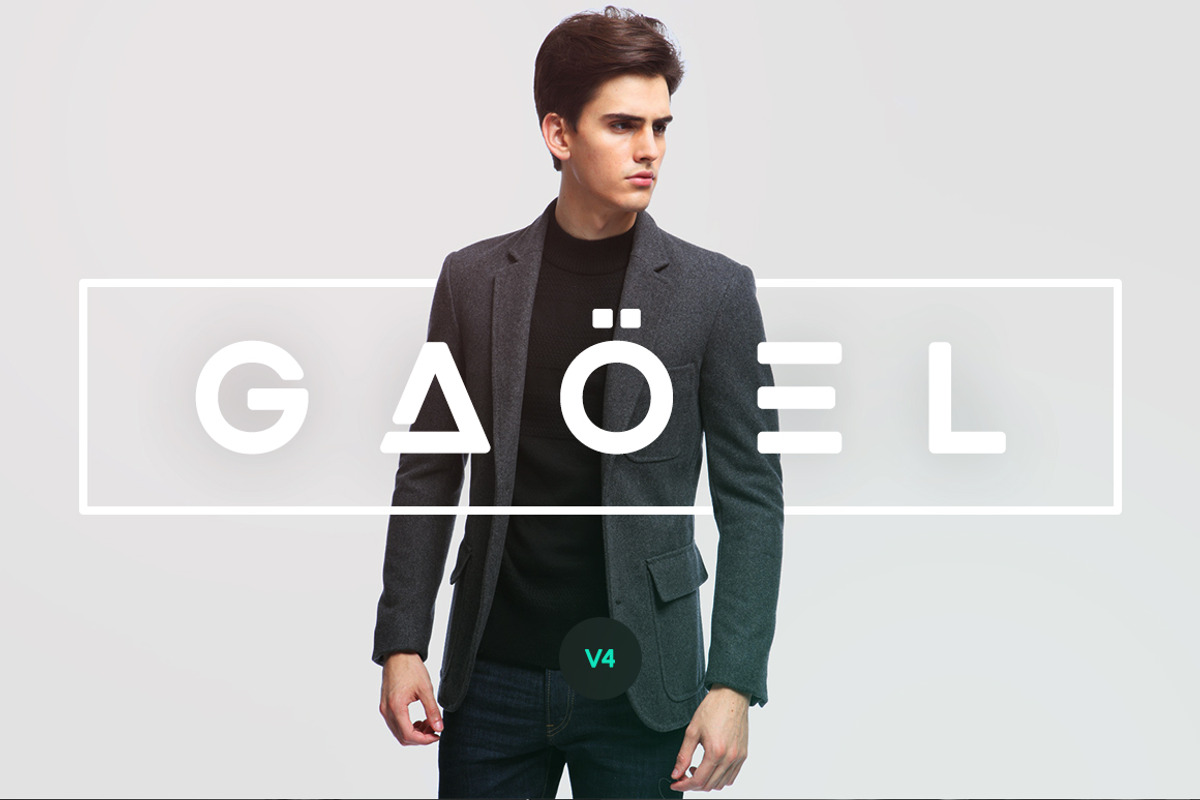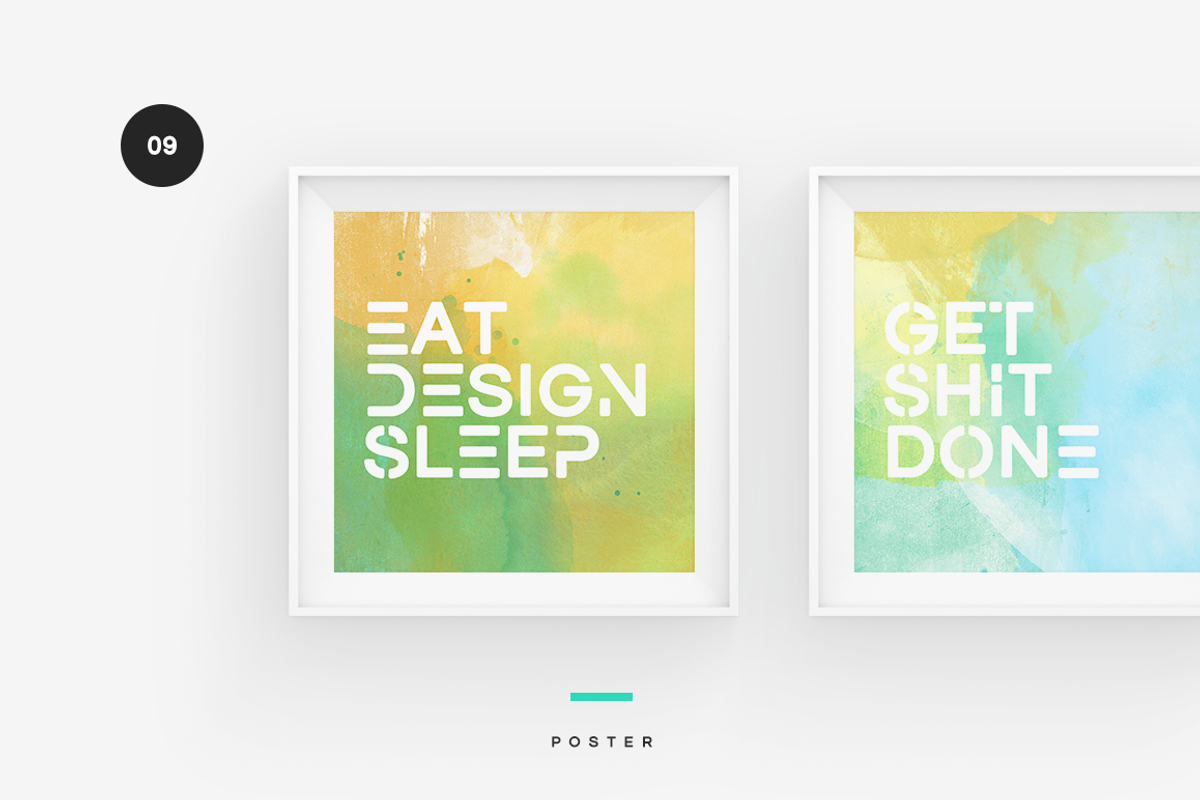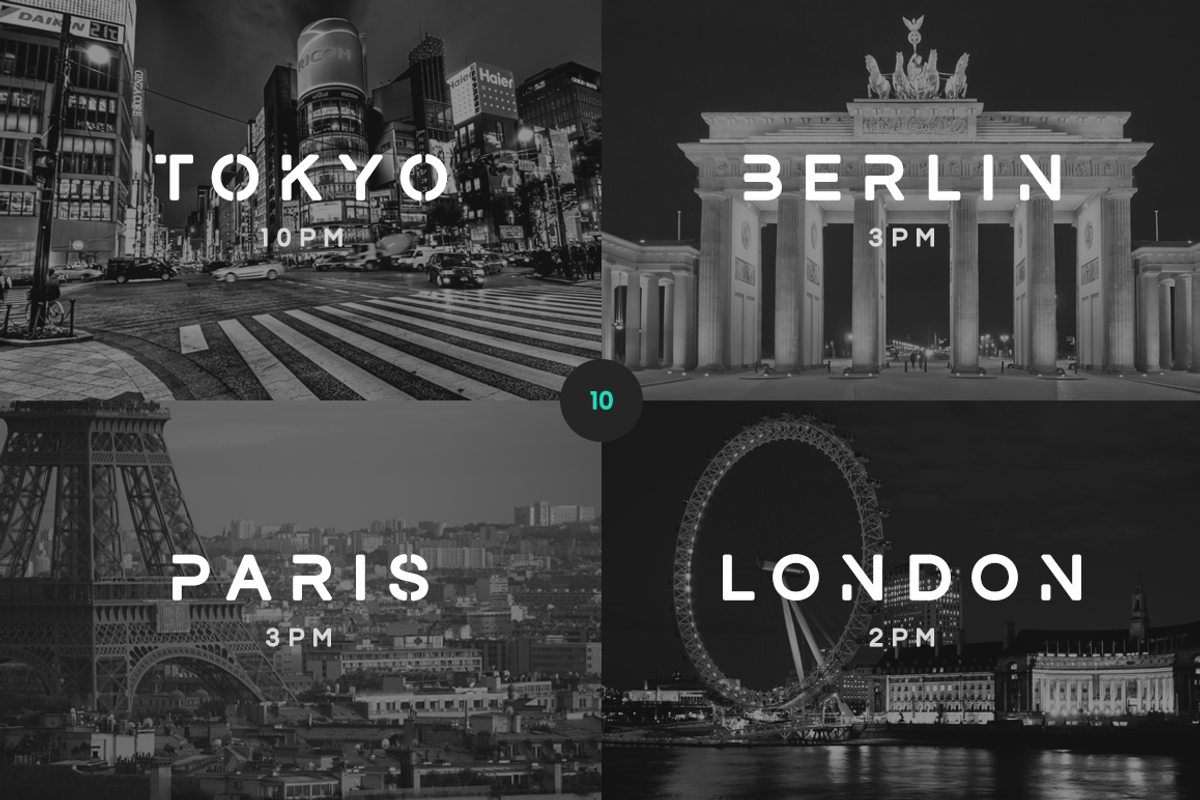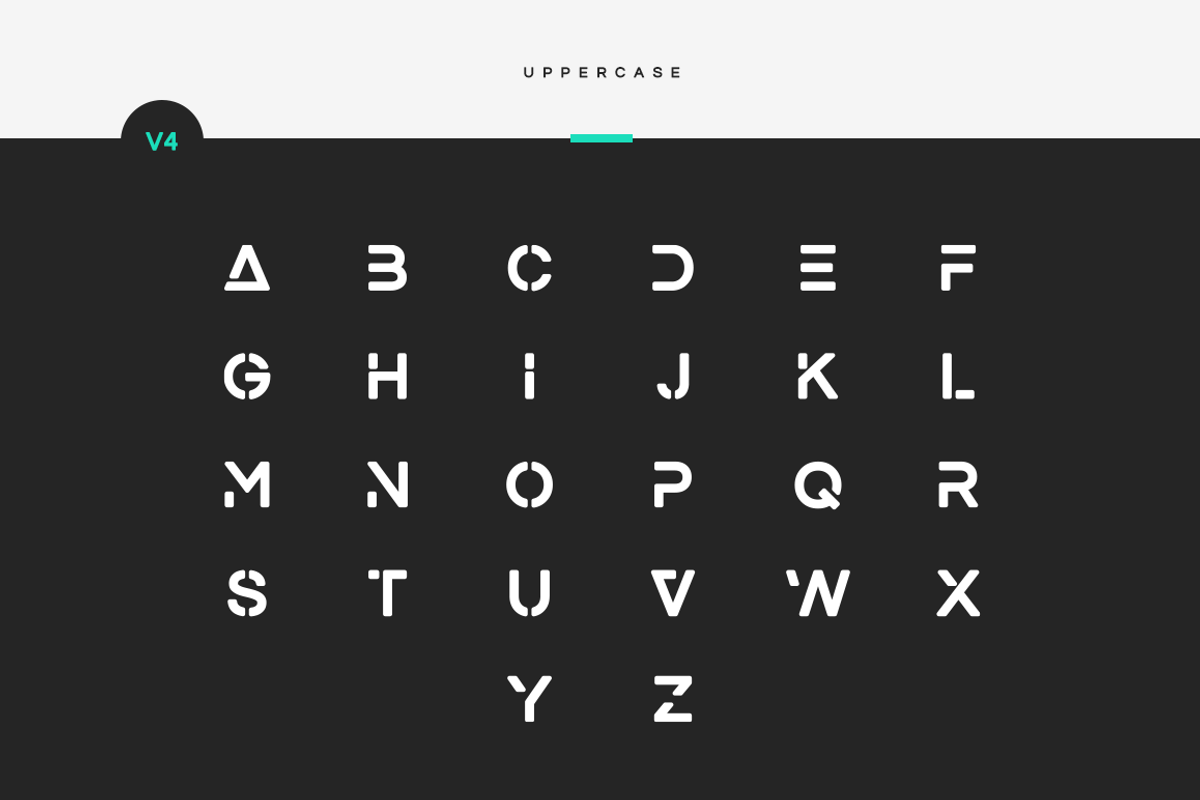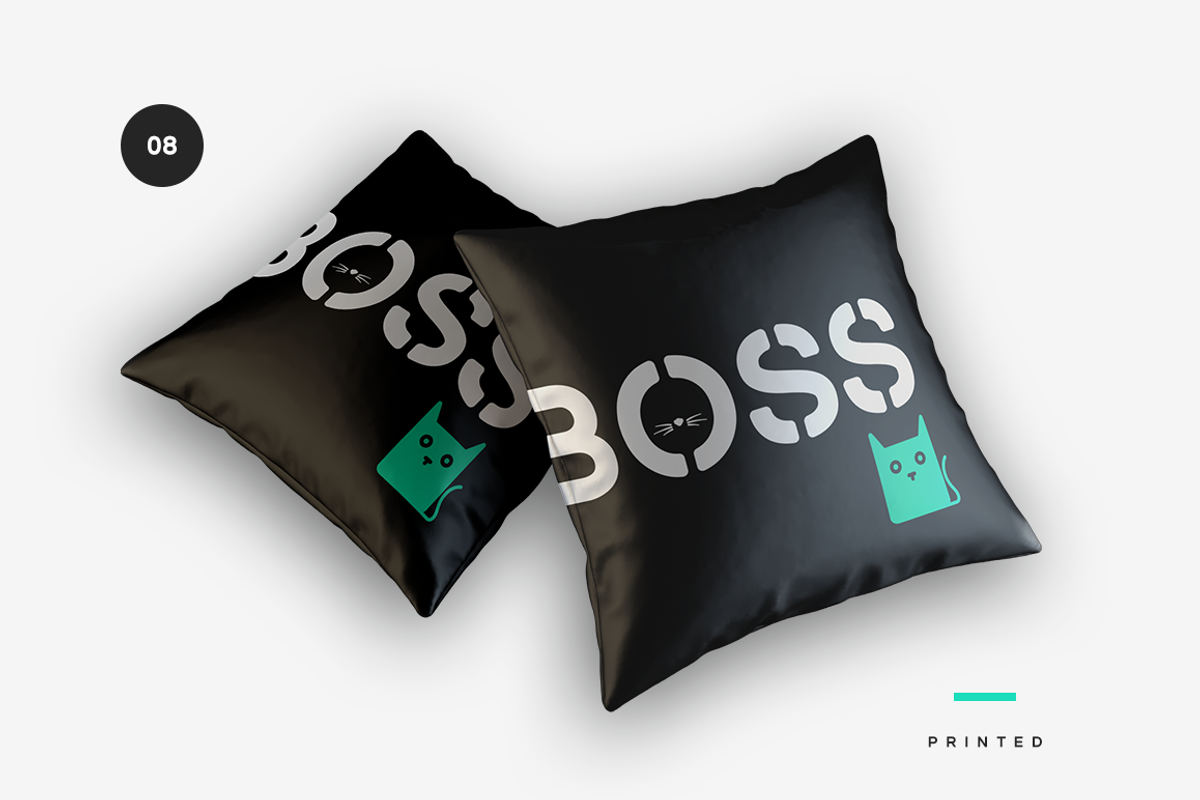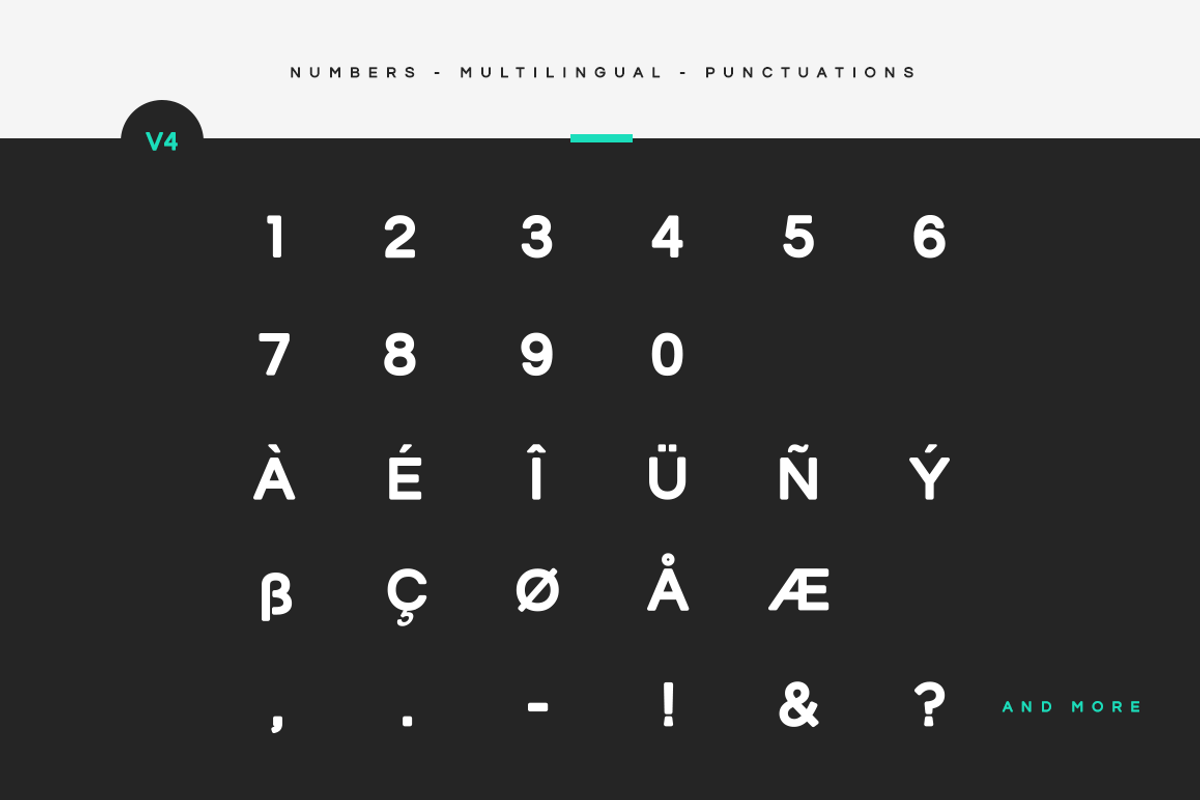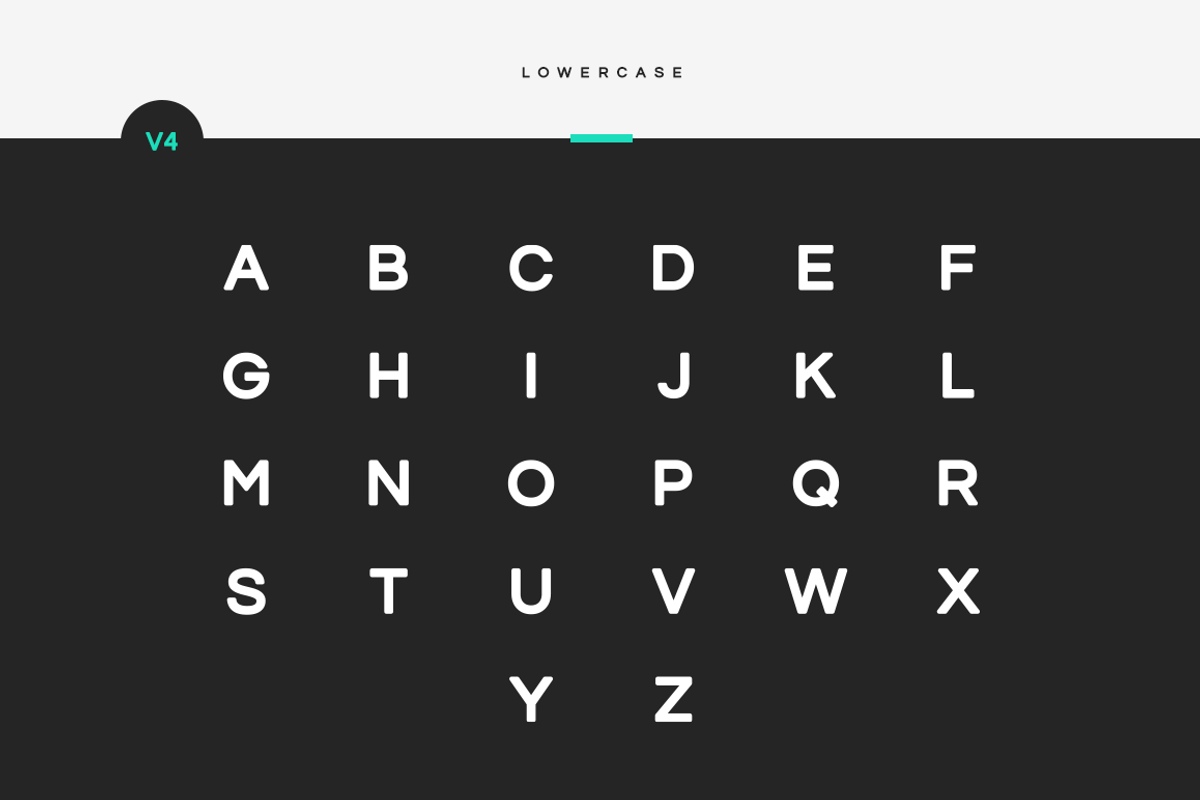
Gaoel Sans
**GAOEL FONT | A must have tool for professionals **
Soft, Bold, and Elegant. Gaoel is the new all caps sans serif typeface that feels somehow familiar. It inherited an honest tone that’s confident but not arrogant, cozy but not mellow, smooth but not wobbly. The result is a hybrid combining humanistic proportions with a somewhat geometric appearance. This is perfect sans serif to sweeten up your headlines, branding visual identity, editorial, poster, and etc.
- Gaoel Regular
2 style uppercases
Numerals
Punctuations
Accents (Multilingual characters)